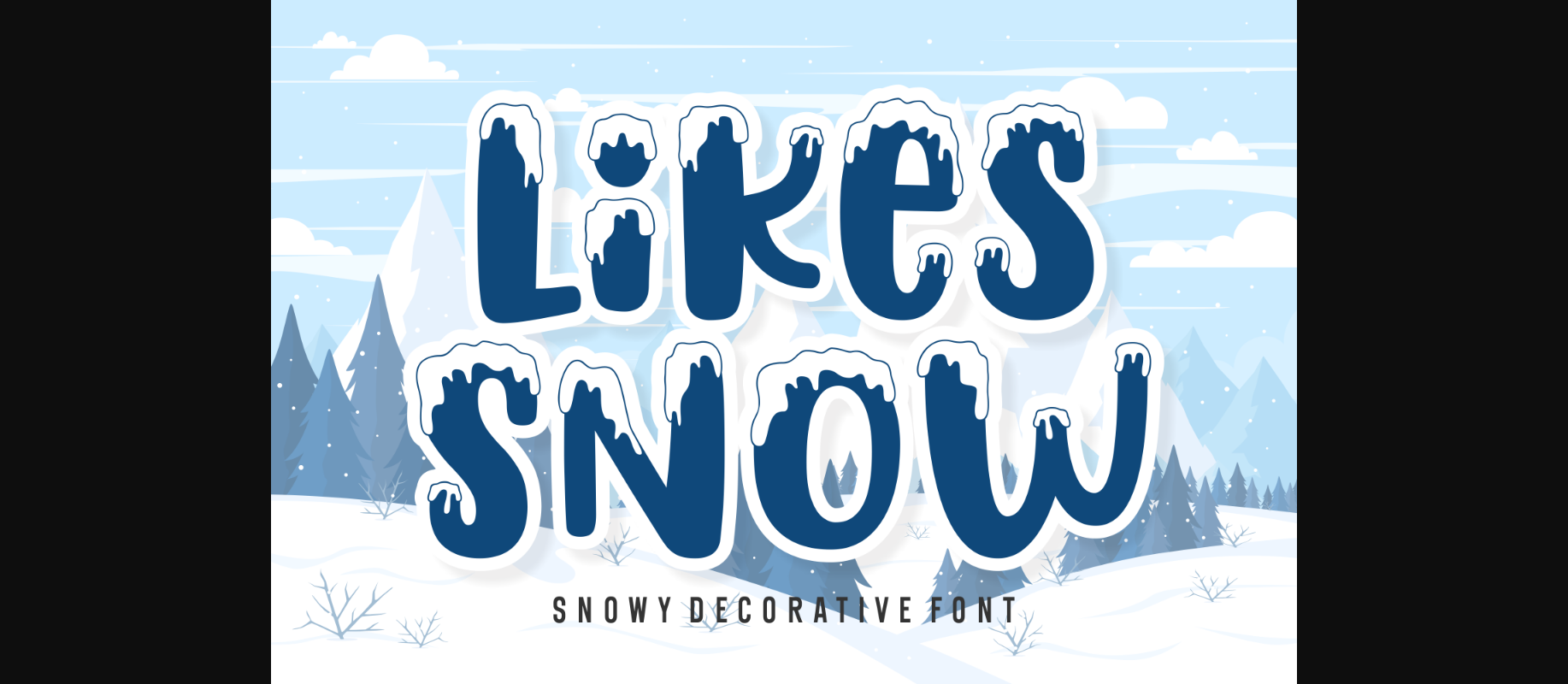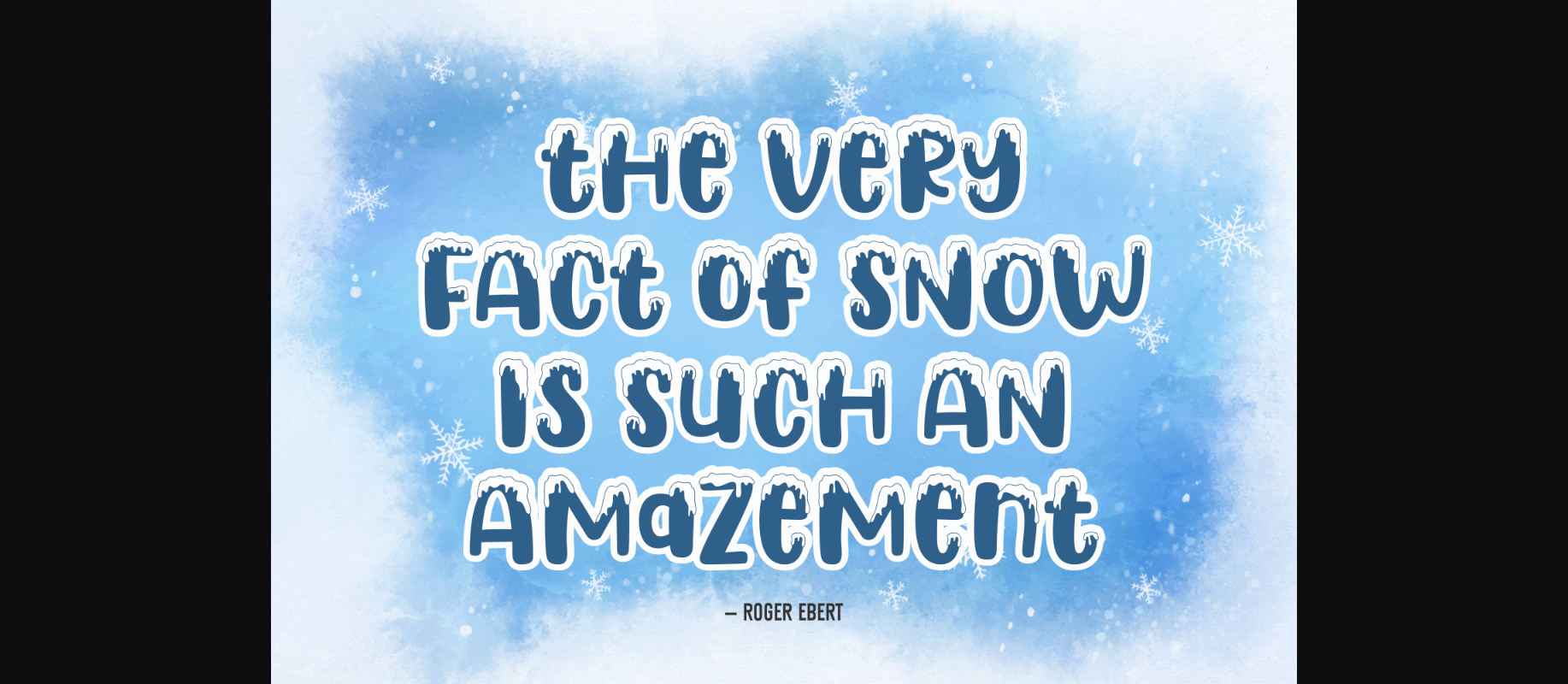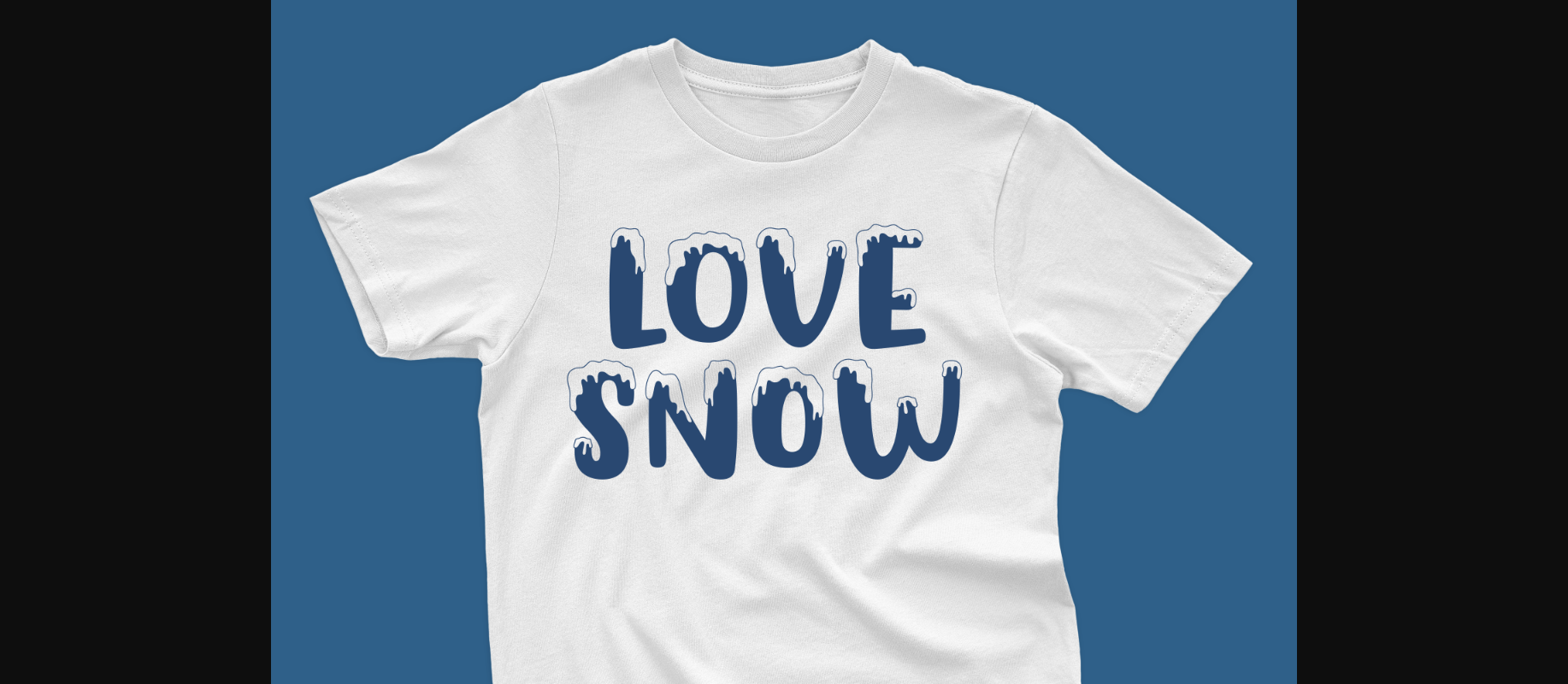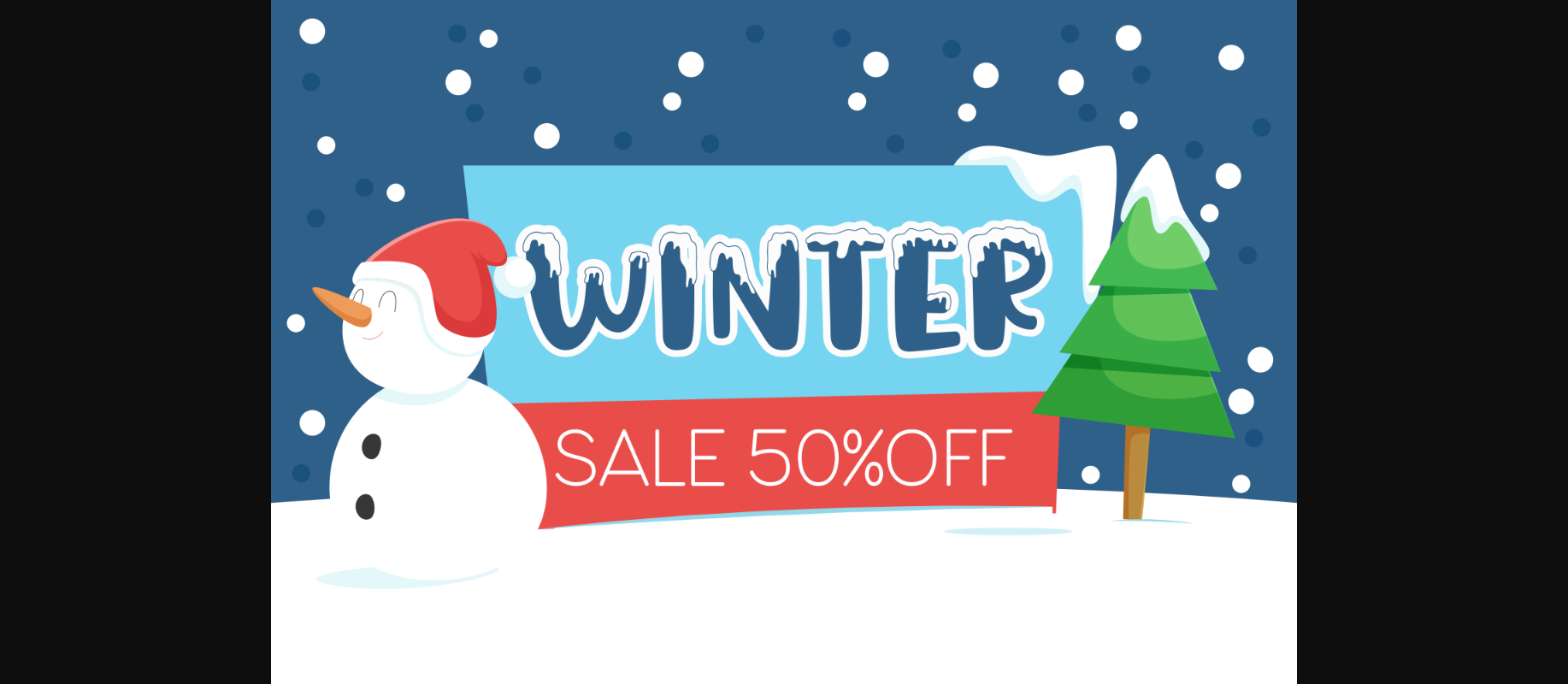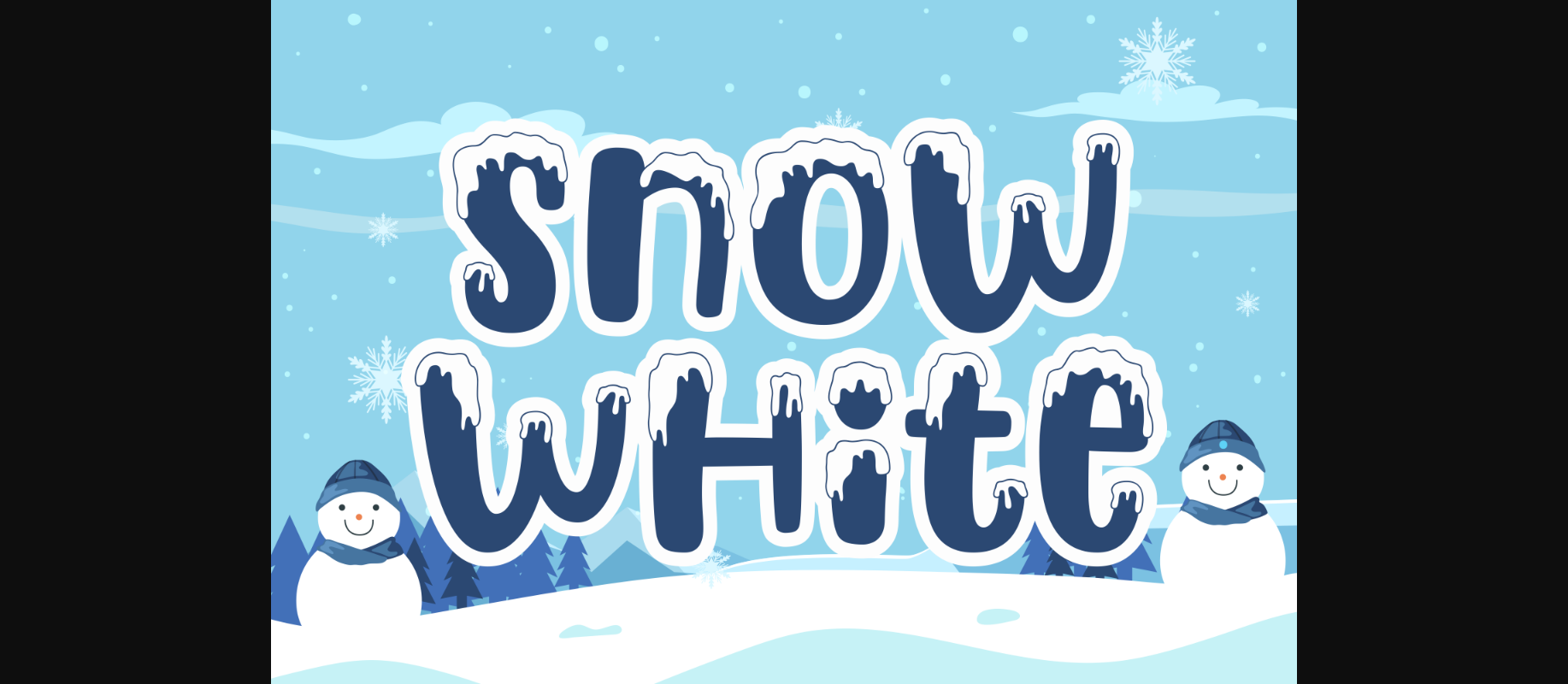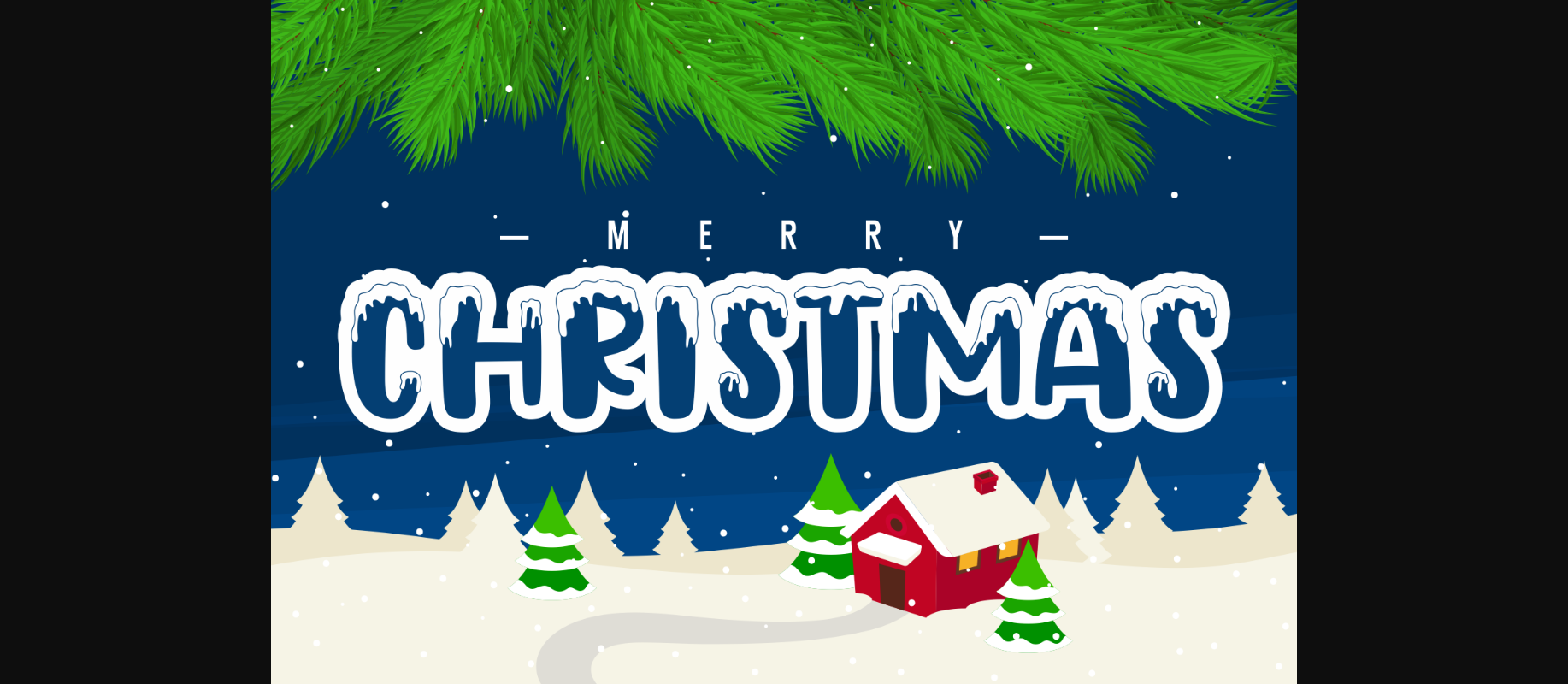
Likes Snow Font
About Likes Snow Font
Likes Snow is a gorgeous decorative font, that fits incredibly well to this time of the year. No matter the topic, this font will be an incredible asset to your fonts’ library, as it has the potential to elevate any creation.